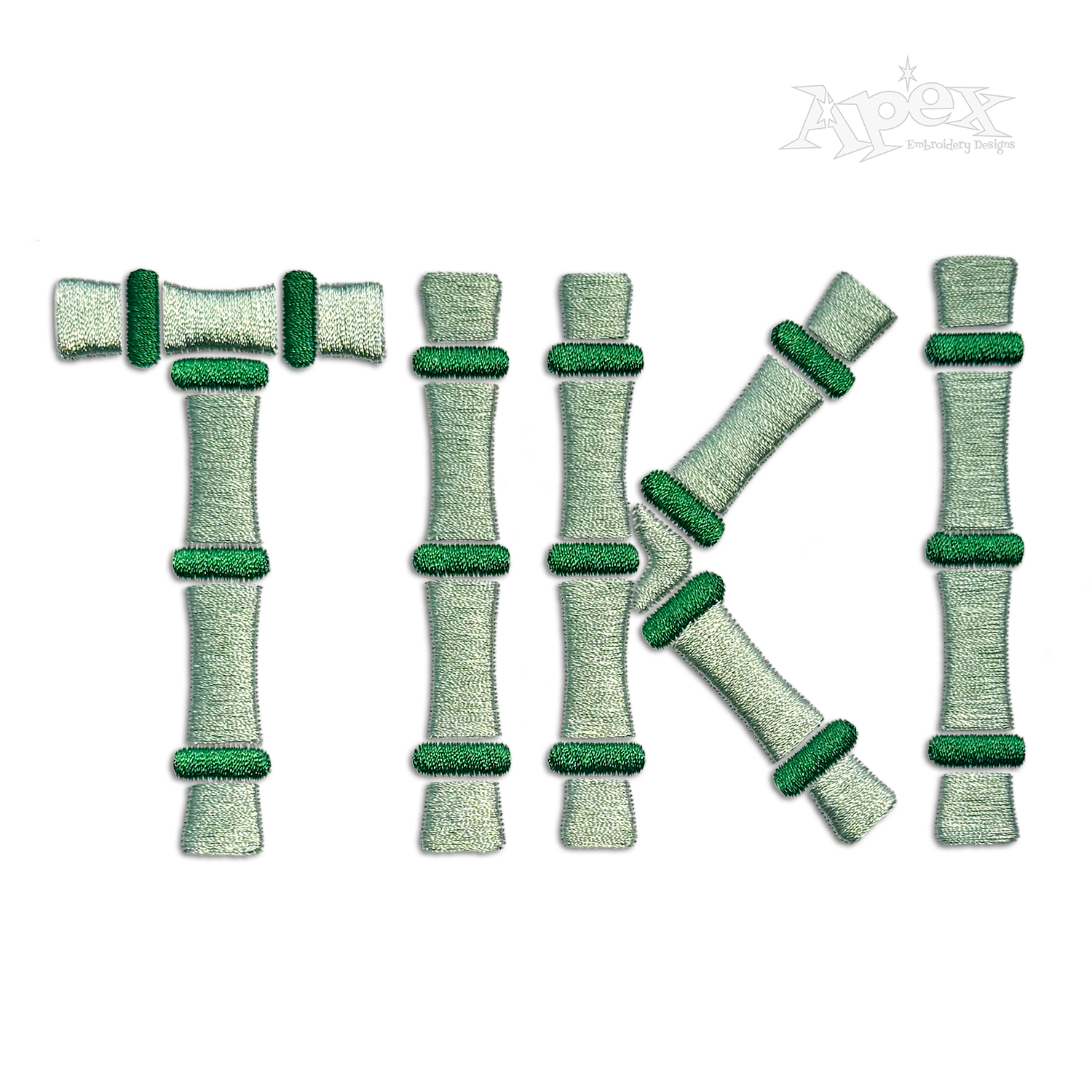
Stylish Bamboo Monogram Applique Embroidery Font
Evoking the breezy nostalgia of mid-century tiki cabanas and sun-drenched coastal verandas, this stylish bamboo monogram applique embroidery font transforms simple letters into organic works of art. Designed with striking segmented stalks and structural node accents, each glyph honors the rustic elegance of tropical cane furniture while framing your favorite fabric prints within clean, defined contours. Whether you are stitching an eye-catching focal initial onto a heavy canvas tote or styling custom accents for a seaside bungalow, this applique alphabet strikes the perfect balance between relaxed island spirit and polished embroidery craftsmanship.
Project Ideas for Stylish Bamboo Monogram Applique
- Bespoke Resort Wear: Personalize the back of a lightweight linen jacket, denim chore coat, or relaxed poolside cover-up with a tropical initial.
- Coastal Beach & Weekender Totes: Showcase vibrant floral batiks or bold awning stripes within the bamboo outline on heavy-duty canvas carryalls.
- Tiki Bar & Patio Accents: Stitch coordinated monograms onto outdoor throw pillows, custom bar stool covers, or tropical table runners for outdoor entertaining.
- Plush Poolside Loungers: Elevate thick terry cabana towels and chaise lounge covers with high-contrast applique lettering.
- Personalized Vacation Gifting: Create memorable wedding shower gifts, tropical honeymoon accessories, or custom family getaway keepsakes.
- Canvas Totes & Carryalls: Position the applique letter dead-center on the front panel, keeping at least two inches of breathing room from the top rim and base seams.
- Outerwear & Kimono Jackets: Center the 8-inch monogram between the shoulder blades across the upper-to-mid back for maximum dramatic flair.
- Accent Pillows: Center your chosen initial on a 18x18 or 20x20 inch pillow face to anchor your seating arrangement with mid-century island style.
- Bath & Beach Linens: Place the initial centrally along the wide lower border, roughly three to four inches above the finished hem band.
Stylish Bamboo Monogram Applique Craft & Letterform Details
Digitizing bamboo requires capturing natural botanic irregularity while maintaining impeccable technical balance on the machine. Every stalk within this alphabet features sculpted nodes and beveled joint contours that convincingly mimic living cane. The applique cut lines and tack-down stages are mapped with generous clearance, allowing you to trim your applique fabric smoothly before the final stitch layer begins.
The outer border is finished with a dense, lustrous satin stitch that firmly encapsulates raw textile edges, preventing fraying even after repeated washings. Underlay stitches are carefully layered along the stalk paths to create a subtle raised relief, lifting the bamboo joints slightly off the fabric surface for an authentic, three-dimensional tactile feel that brings island luxury directly to your embroidery hoop.